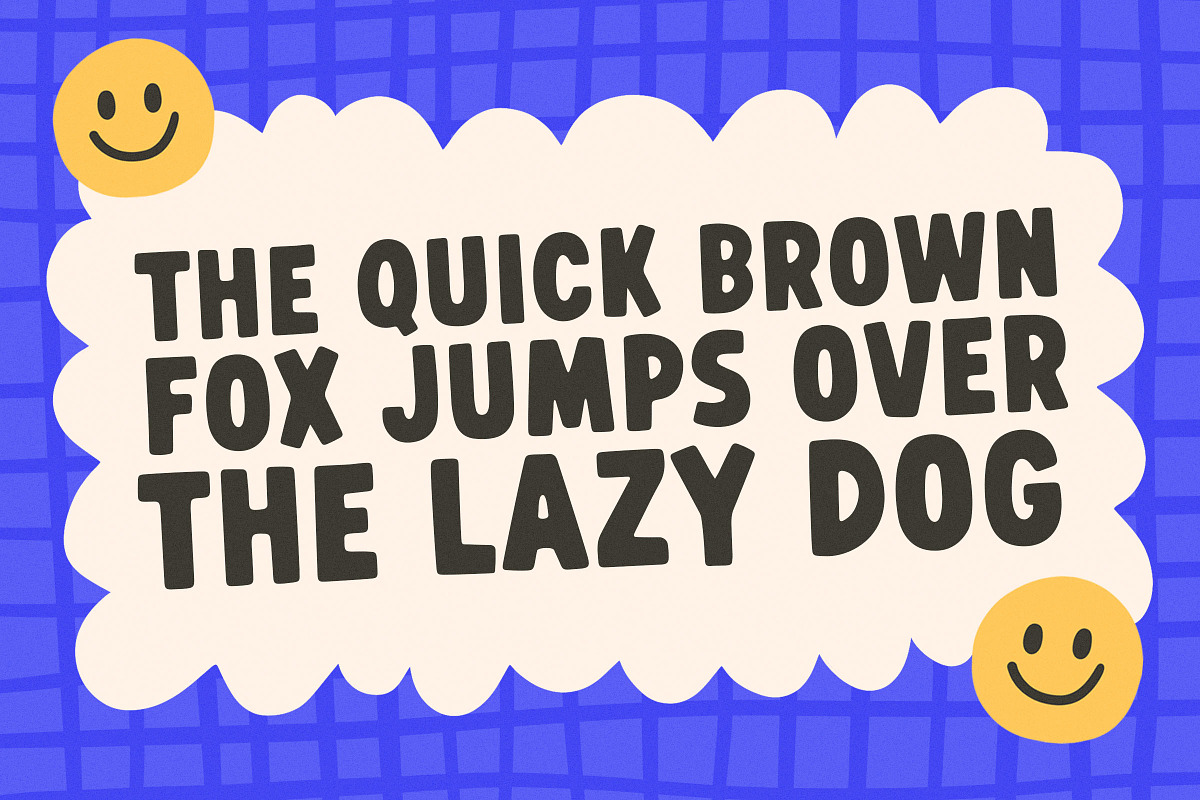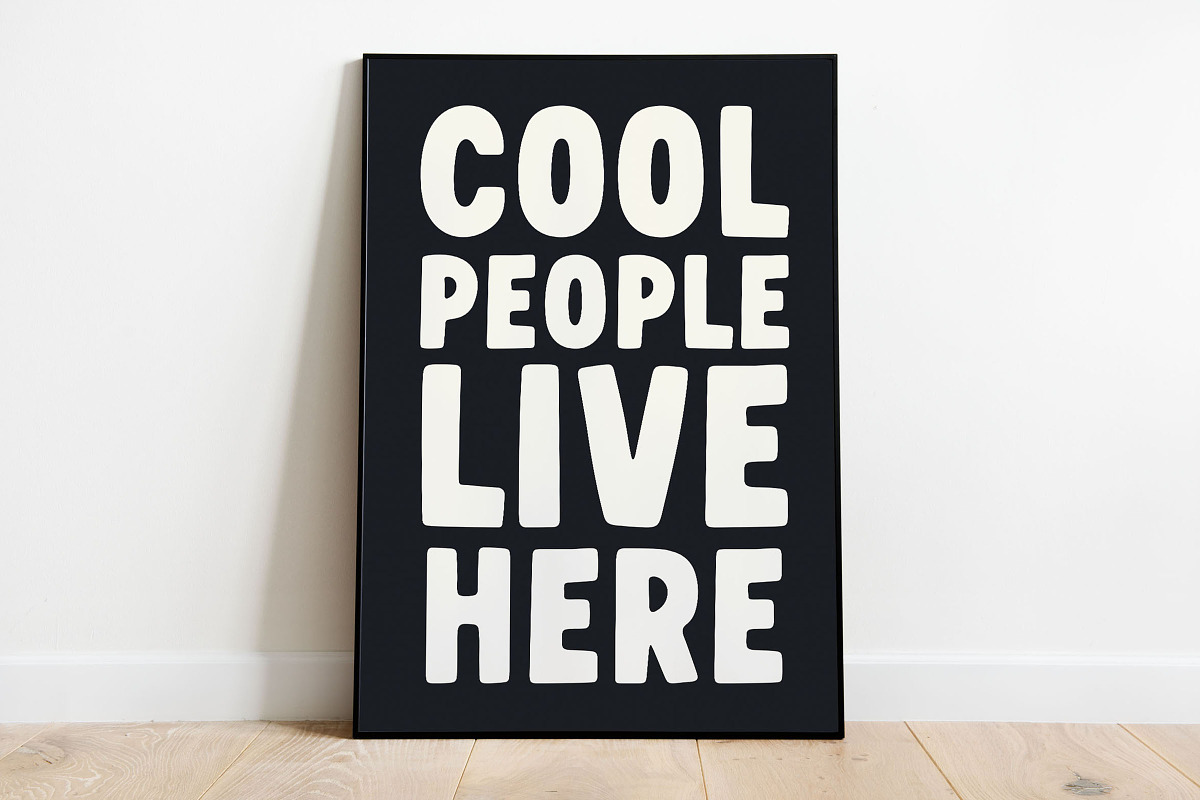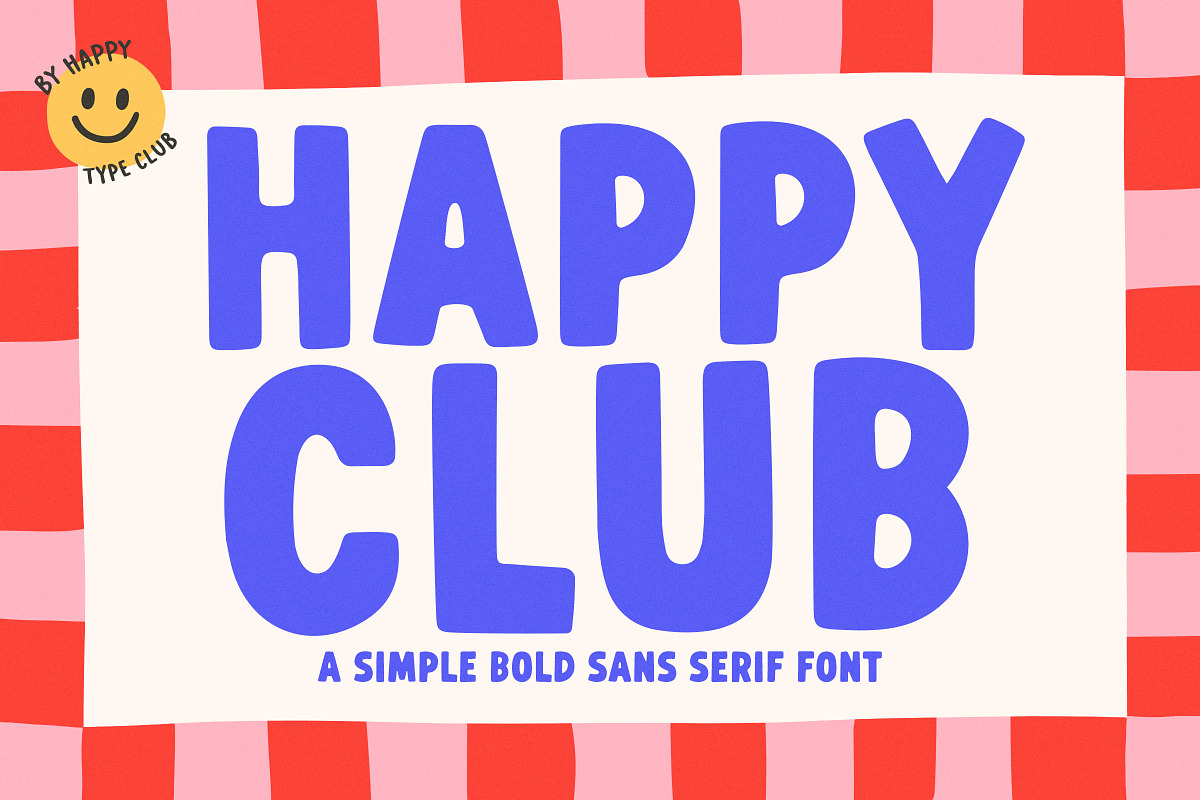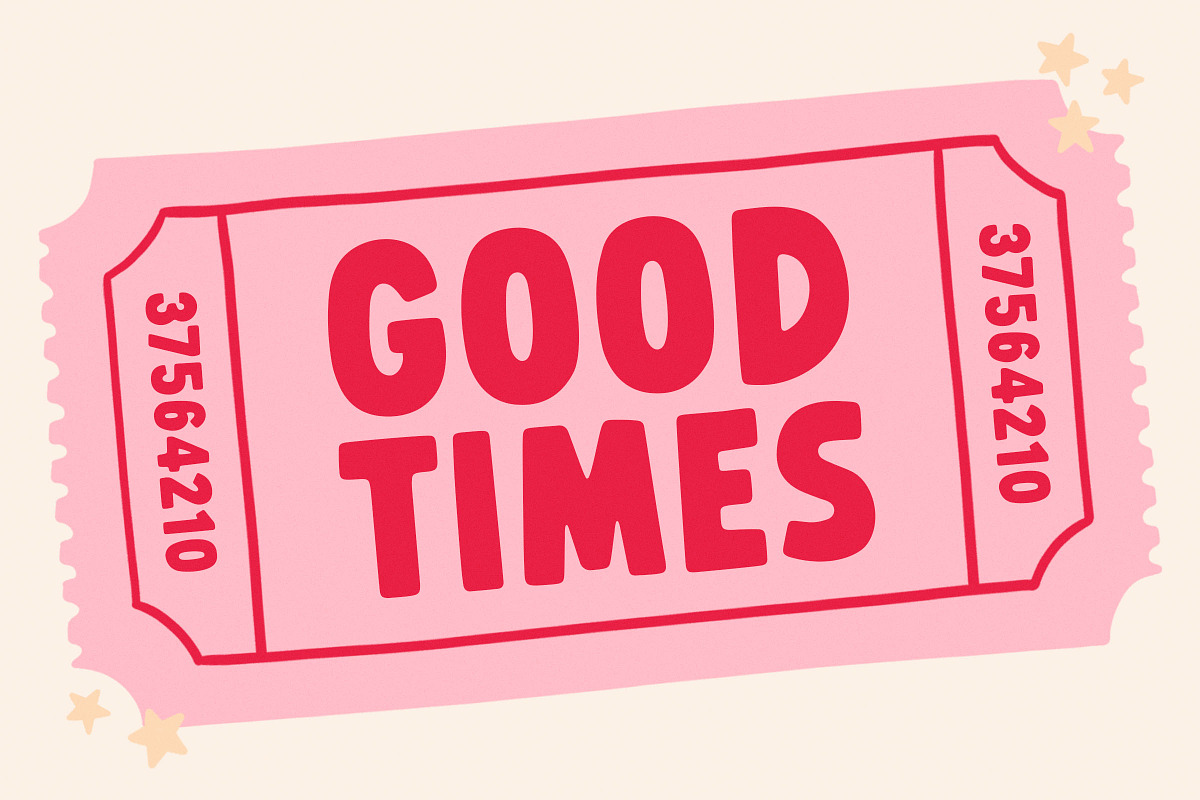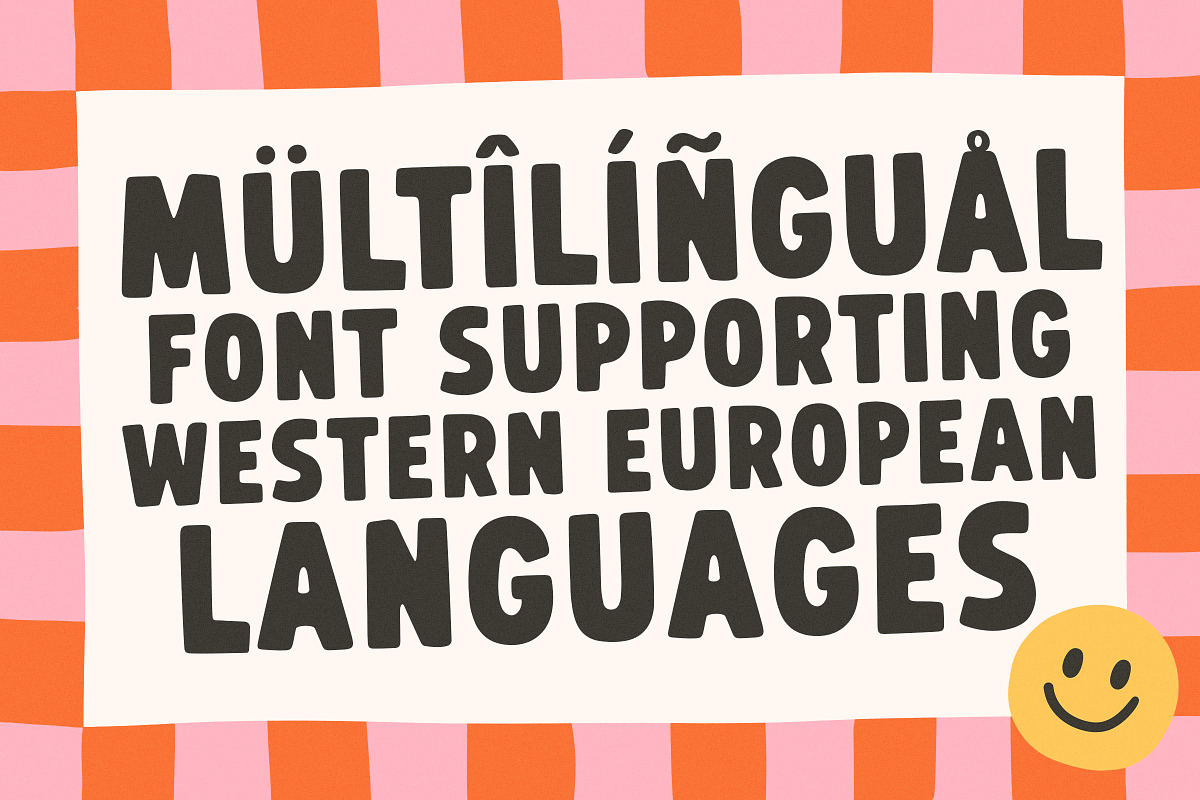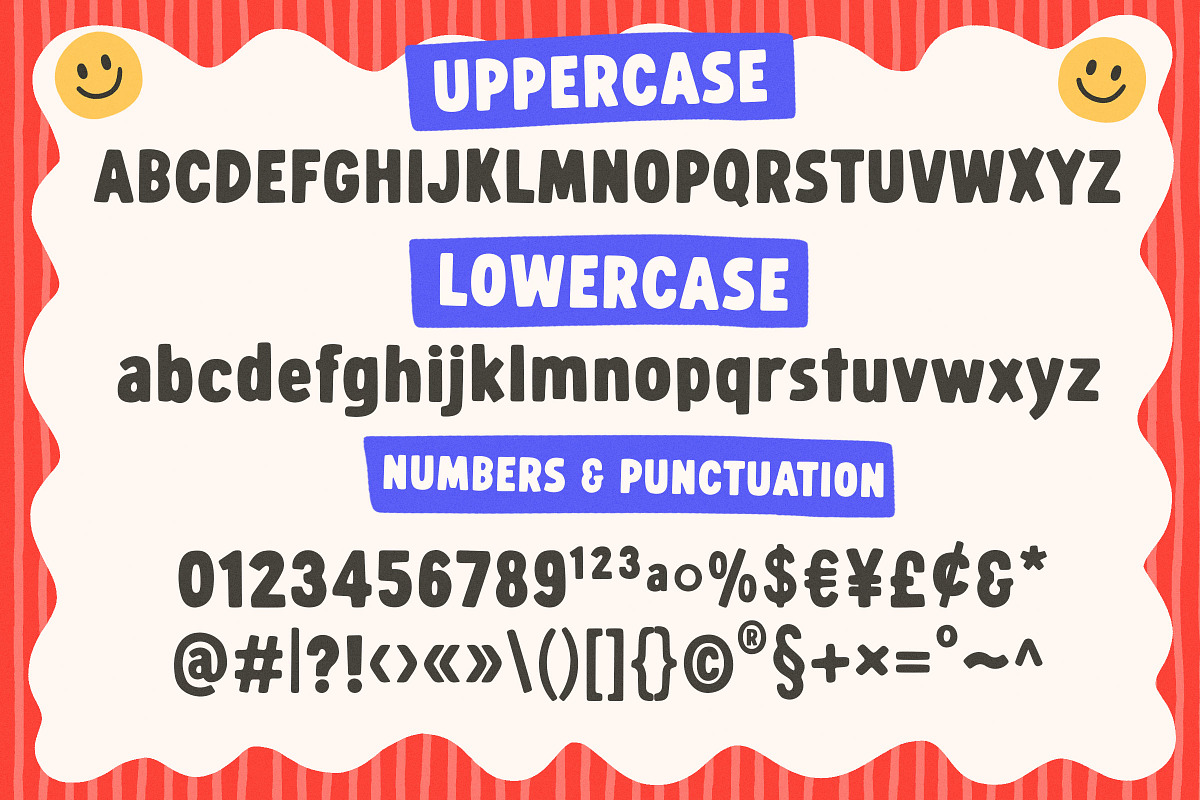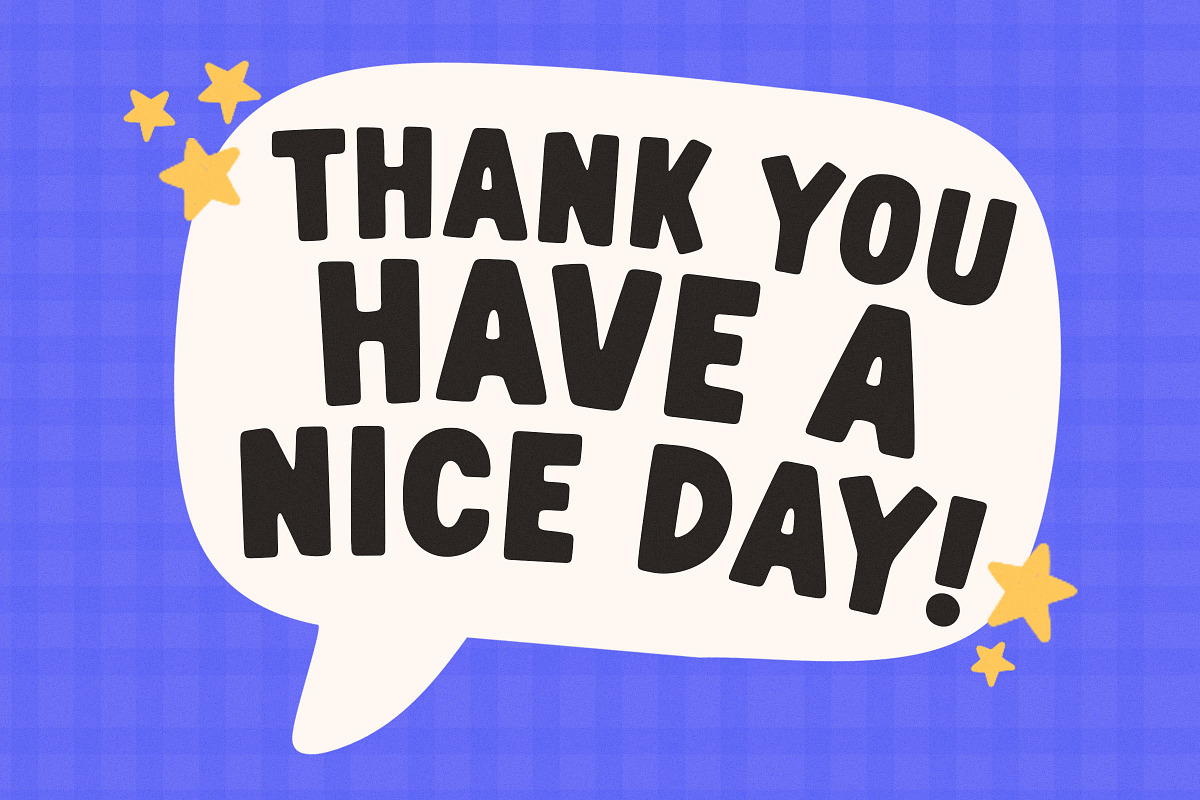
Happy Club - Simple Bold Sans Serif
Happy Club is a simple bold typeface perfect for any fun quirky design work! This font can be used for anything such as t-shirt designs, phone cases, greeting cards, invitations, mugs and so much more! Get creative!